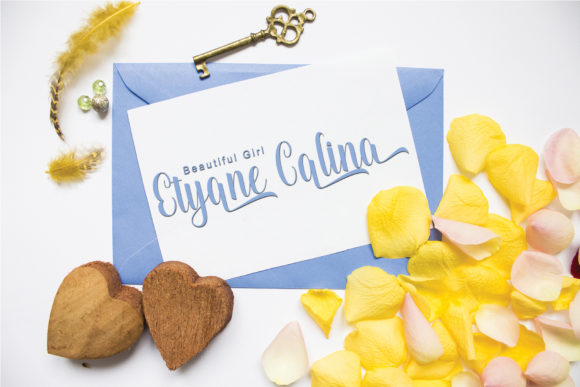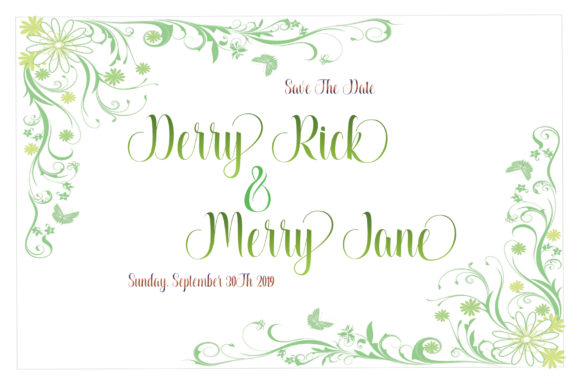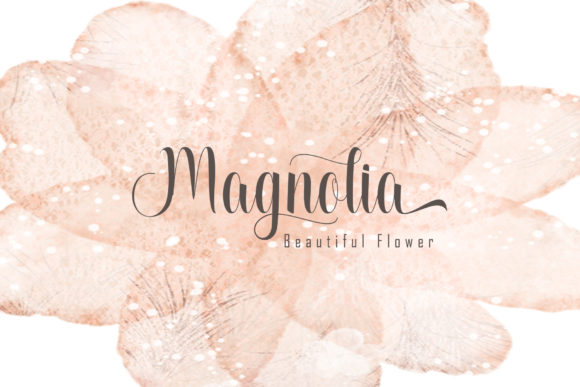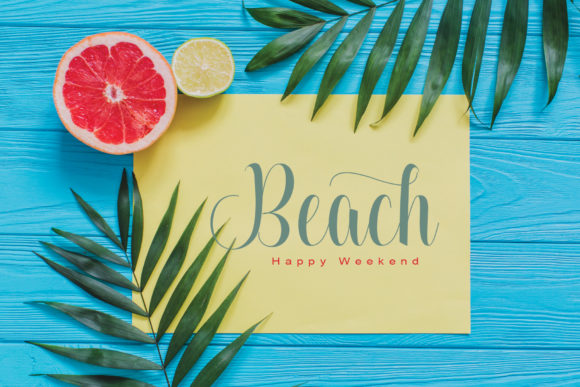
Introduction to Attycha Font
Have you ever been working on a creative project, pouring your heart and soul into it, only to realize that the perfect finishing touch is just out of reach? That’s when the magic happens, and I stumbled upon the enchanting Attycha Font. This beautiful script font, designed by hand, is a game-changer for any design project that requires a touch of romance and whimsy.
As a designer, you understand the value of having a high-quality design resource that can elevate your work to the next level. The Attycha Font is more than just a pretty face – it’s a versatile tool that can add a professional and creative touch to any project, from wedding invitations to digital art.
Key Features of Attycha Font
- High-quality, creative font suitable for a wide range of design projects, including branding, packaging, and digital media.
- Unique, hand-crafted design that sets it apart from other fonts, adding a touch of personality to your creative project.
Honest Review: Attycha Font
As a designer, I’m always on the lookout for high-quality design resources that can help me bring my creative project to life. The Attycha Font is one such resource that caught my attention recently.
One of the things that stood out to me about the Attycha Font was its unique and creative style. The font is perfect for designers who want to add a touch of elegance and sophistication to their projects. The transparent background of the font also makes it easy to use in various design scenarios.
Here are some of the things that work well with the Attycha Font:
- ✨ Unique and creative style
- ✨ Perfect for designers who want to add a touch of elegance and sophistication to their projects
- ✨ Transparent background makes it easy to use in various design scenarios
However, there are a few limitations to the Attycha Font:
- ⚠️ Limited character set, which may not be suitable for designers who need a wide range of characters
- ⚠️ Not suitable for use in small text sizes, as the font may become blurry or difficult to read
Overall, I’m impressed with the Attycha Font and would definitely recommend it to designers who are looking for a high-quality, creative font for their projects.
The Attycha Font is a versatile design resource that can be used in a variety of creative projects, including logos, business cards, and social media graphics. It’s also great for creating presentations, reports, and other documents that require a professional and high-quality design.